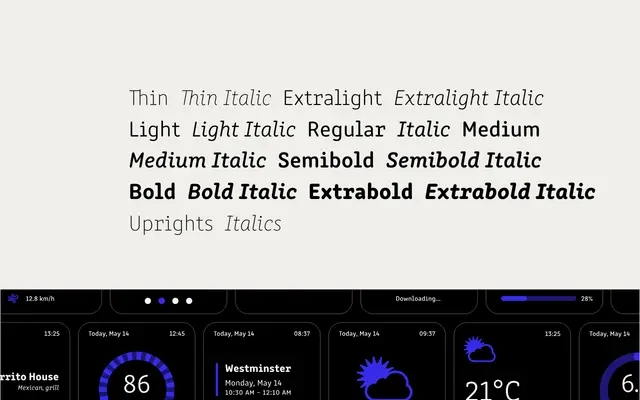
Clone Rounded PE
A rounded geometric sans with quasi-monospaced letterforms and minimal stroke contrast, covering Latin, Cyrillic and Greek across eight weights with variable font support.
The family draws on typewriter-like proportions, with semi-serif characters and near-even spacing that give it a structured, technical feel without abandoning readability. Eight weights from Thin to Extrabold each have matching italics, and the full range is available as variable fonts for both uprights and italics. The broad script coverage across Latin, Cyrillic and Greek makes it well suited to multilingual publishing and interface work.
Clone Rounded PE is a geometric sans with rounded terminals and quasi-monospaced, minimal-contrast letterforms that reference typewriter aesthetics, placing it firmly in the geometric sans category with a technical, neutral character.